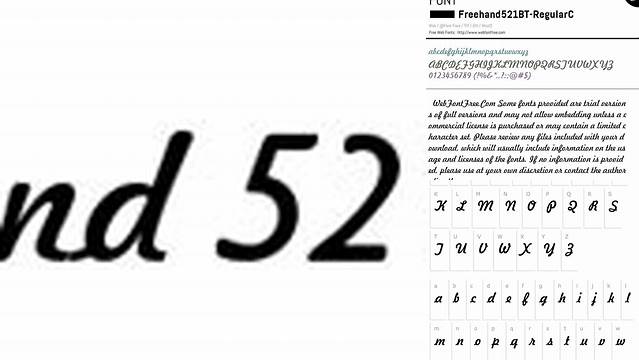
Freehand 521BT Regular C: Font Guide & Uses
Let's dive into the world of Freehand 521BT Regular C, a font that might just become your new favorite! In this article, we're going to explore everything you need to know about this font, from its unique characteristics to how you can use it in your projects. Whether you're a seasoned designer or just starting out, understanding the nuances of Freehand 521BT Regular C can really elevate your work. So, buckle up, guys, and let's get started!
Understanding Freehand Fonts
Before we zoom in on Freehand 521BT Regular C, let's talk about freehand fonts in general. These fonts are designed to mimic the look of natural handwriting or drawing, giving them a personal and informal feel. They often feature irregularities in stroke width and letterforms, which contribute to their charm. Freehand fonts are perfect for projects where you want to convey a sense of authenticity, creativity, or warmth. Think about using them in invitations, logos, or website headers to add a touch of personality. When choosing a freehand font, consider the overall tone you want to achieve. Some are playful and whimsical, while others are more elegant and refined.
Key Features of Freehand 521BT Regular C
So, what makes Freehand 521BT Regular C stand out from the crowd? Well, it's all in the details. This font has a distinctive, slightly quirky appearance that sets it apart. The letterforms are well-balanced, making it easy to read even in longer passages of text. It strikes a great balance between informality and legibility. The subtle variations in stroke width give it a natural, hand-drawn feel without sacrificing clarity. This makes it a versatile choice for a wide range of applications. Whether you're designing a website, creating marketing materials, or working on a personal project, Freehand 521BT Regular C can bring a unique touch to your work. Pay attention to the spacing and kerning, as these elements contribute to the overall readability and aesthetic appeal.
Ideal Use Cases for Freehand 521BT Regular C
Where does Freehand 521BT Regular C really shine? This font is a fantastic choice for projects that need a touch of personality and warmth. Think about using it for wedding invitations, birthday cards, or thank-you notes. Its informal style makes it perfect for these types of applications. It's also great for branding projects that want to convey a sense of creativity or authenticity. Imagine using it for a coffee shop logo or a handmade goods store. On websites, Freehand 521BT Regular C can be used for headings and subheadings to add visual interest without sacrificing readability. Just be careful not to overuse it in body text, as its unique style might become tiring for readers. Consider pairing it with a more neutral sans-serif font for body text to create a balanced and visually appealing design.
Freehand 521BT Regular C in Branding
When it comes to branding, Freehand 521BT Regular C can be a powerful tool. It can help your brand stand out and convey a specific message to your audience. If your brand values creativity, authenticity, or a personal touch, this font can be a great fit. Think about how you can incorporate it into your logo, website, and marketing materials. Consistency is key when it comes to branding, so make sure you use the font consistently across all your channels. This will help reinforce your brand identity and create a cohesive look and feel. Don't be afraid to experiment with different colors and layouts to see what works best for your brand. The goal is to create a visual identity that is both memorable and effective.
Typography Tips for Freehand 521BT Regular C
To get the most out of Freehand 521BT Regular C, it's important to follow some basic typography principles. Pay attention to kerning, leading, and tracking to ensure that your text is easy to read and visually appealing. Kerning refers to the spacing between individual letters, while leading refers to the spacing between lines of text. Tracking refers to the overall spacing of the letters in a word or phrase. Experiment with different values to see what looks best for your specific application. Also, consider the contrast between the font and the background. Make sure there's enough contrast to ensure that the text is readable. Finally, don't be afraid to break the rules and experiment with different styles. Typography is an art, so have fun and let your creativity shine.
Pairing Freehand 521BT Regular C with Other Fonts
Choosing the right font pairing can make or break your design. When working with Freehand 521BT Regular C, it's important to choose a font that complements its unique style. A good rule of thumb is to pair it with a more neutral sans-serif font. This will create a balance between the informal and the formal, making your design more visually appealing. Some popular sans-serif fonts that work well with Freehand 521BT Regular C include Helvetica, Arial, and Open Sans. You can also experiment with serif fonts, but be careful to choose one that doesn't clash with the hand-drawn feel of Freehand 521BT Regular C. Think about using a classic serif font like Times New Roman or Georgia. Ultimately, the best font pairing will depend on the specific project and the overall aesthetic you're trying to achieve. So, don't be afraid to experiment and see what works best.
The History Behind Freehand Fonts
The story of freehand fonts is a fascinating journey through the evolution of typography. These fonts emerged as a response to the rigid, mechanical look of traditional typefaces. Designers sought to create fonts that captured the warmth and personality of human handwriting. Early freehand fonts were often based on the actual handwriting of famous calligraphers or artists. Over time, technology made it easier to create and distribute these fonts, leading to a surge in popularity. Today, freehand fonts are used in a wide range of applications, from branding and advertising to web design and print media. They continue to evolve and adapt to changing design trends, ensuring their relevance in the modern world.
Freehand 521BT Regular C vs. Other Freehand Fonts
How does Freehand 521BT Regular C stack up against other freehand fonts? Each freehand font has its own unique characteristics, so it's important to understand the differences. Some freehand fonts are more playful and whimsical, while others are more elegant and refined. Freehand 521BT Regular C strikes a balance between these two extremes. Its slightly quirky appearance gives it personality, while its well-balanced letterforms ensure readability. Compared to more decorative freehand fonts, Freehand 521BT Regular C is more versatile and can be used in a wider range of applications. It's also more legible than some of the more stylized freehand fonts. Ultimately, the best freehand font for your project will depend on your specific needs and preferences. But Freehand 521BT Regular C is a solid choice for those looking for a font that is both unique and functional.
Designing Logos with Freehand 521BT Regular C
Creating a logo with Freehand 521BT Regular C can give your brand a distinctive and memorable identity. This font's unique character adds a personal touch that can help your brand stand out. When designing a logo, consider the overall message you want to convey. Freehand 521BT Regular C is great for brands that want to project creativity, authenticity, or a friendly vibe. Experiment with different letter combinations and arrangements to find a design that is both visually appealing and easy to recognize. Pay attention to the spacing and kerning to ensure that the logo is legible at different sizes. Also, consider the colors you use in your logo. Choose colors that complement the font and reflect your brand's personality. With careful planning and execution, Freehand 521BT Regular C can help you create a logo that truly represents your brand.
Freehand 521BT Regular C: A Conclusion
So, there you have it! Freehand 521BT Regular C is a versatile and stylish font that can add a touch of personality to a wide range of projects. Whether you're designing a logo, creating marketing materials, or working on a personal project, this font can help you achieve your goals. Just remember to follow the tips and guidelines we've discussed in this article to get the most out of it. Happy designing, guys!